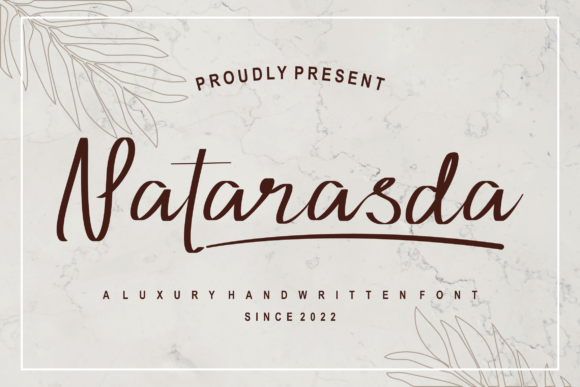
Prepare to be captivated by Natarasda, the stunning script font that radiates charm and sophistication like no other. With its elegant swirls and flowing lines, Natarasda embodies a timeless grace that will elevate your designs to new heights.
Unleash your creativity and create visually striking logos, branding materials, invitations, social media posts, and more. Natarasda's versatility knows no bounds, making it the perfect choice for any project that demands a touch of elegance and uniqueness.
Immerse yourself in the beauty of Natarasda's intricate details. Each character is meticulously crafted to evoke a sense of artistry and luxury. Its delicate strokes dance across the page, leaving a trail of elegance and sophistication in their wake.
With Natarasda, you can transform ordinary words into captivating works of art. Whether you're a seasoned designer or just starting, Natarasda's user-friendly nature makes it easy to create stunning visuals that will leave a lasting impression.
Join the ranks of creative professionals who have discovered the magic of Natarasda. Let your imagination run wild as you explore the endless possibilities this font offers. Create designs that exude elegance, charm, and timeless beauty.
Elevate your designs to the next level with Natarasda, the script font that will make your projects shine with sophistication and grace. Its versatility and effortless charm will captivate your audience, leaving them enchanted by the beauty of your creations.